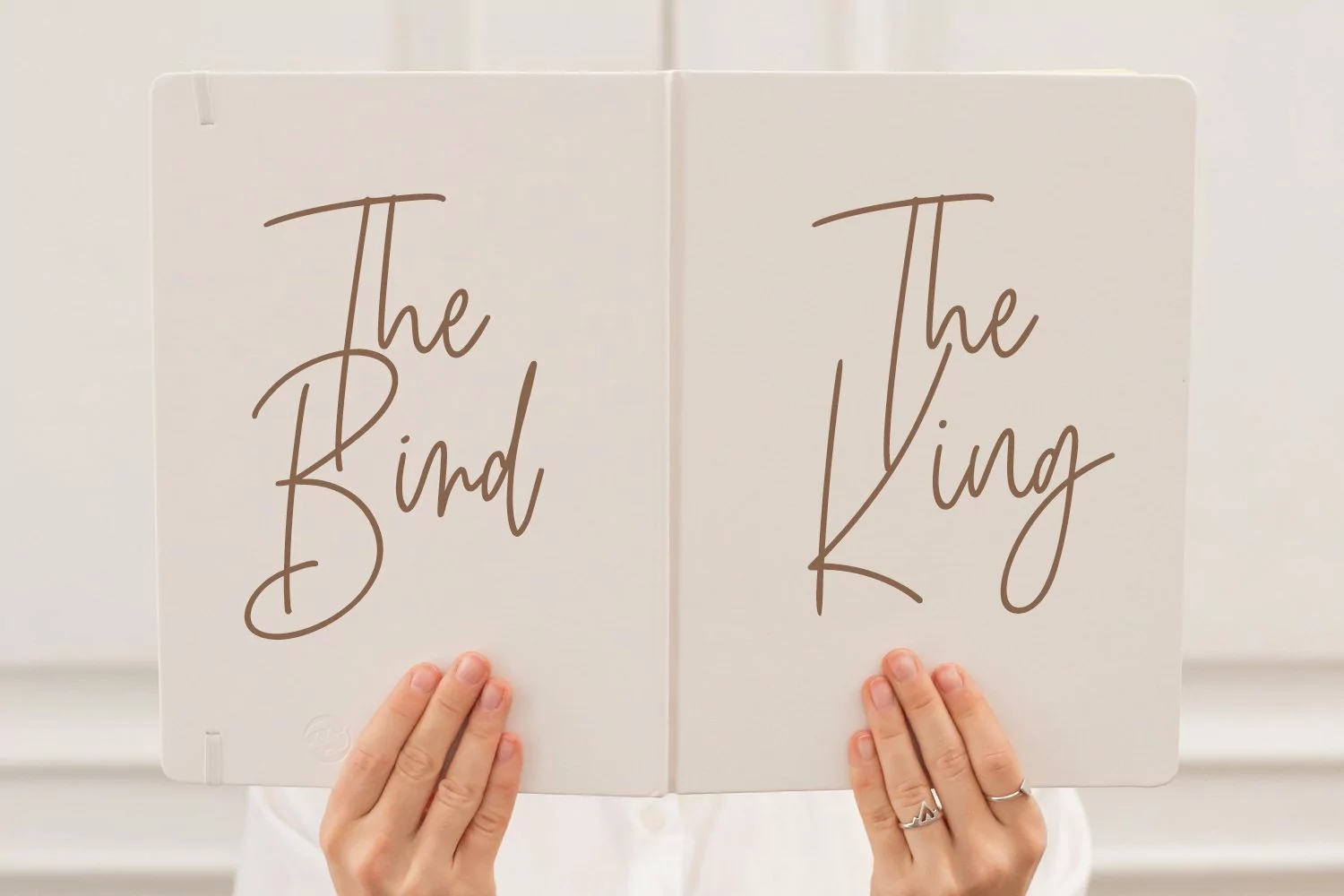
Birdflocks is a handwritten script font, with light mono-line stroke, slant and fun character. It has Opentype features ligatures of character, To give you an extra creative work. Birdflocks handwritten script font support multilingual more than 100+ language. This font is good for logo design, Social media, Movie Titles, Books Titles, a short text even a long text letter and good for your secondary text font with sans or serif. Make a stunning work with Birdflocks font.